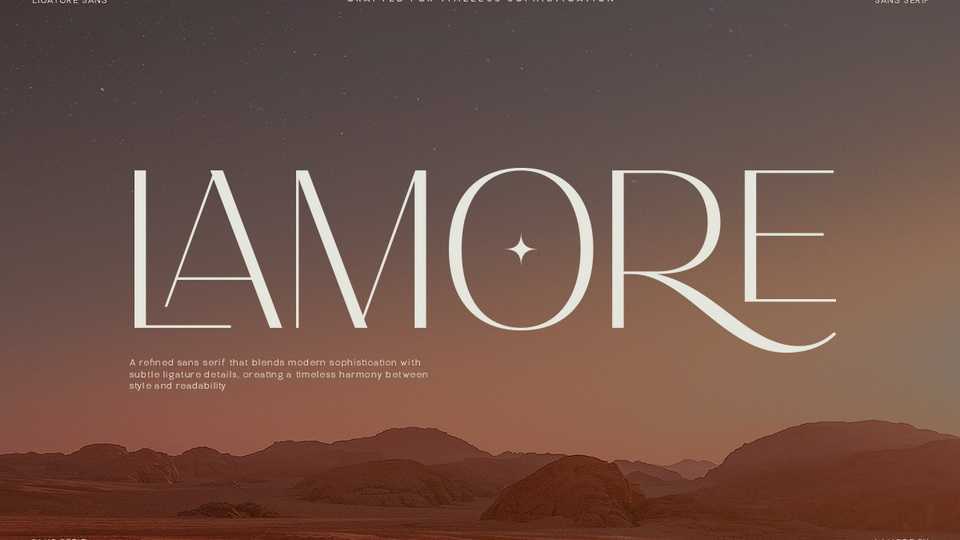
Download Lamore font, a minimalist clean sans serif display typeface introduced as a modern alternative to Radiant. Lamore offers refined geometry, smooth curves, and strong visual clarity.
Designer: Neotype